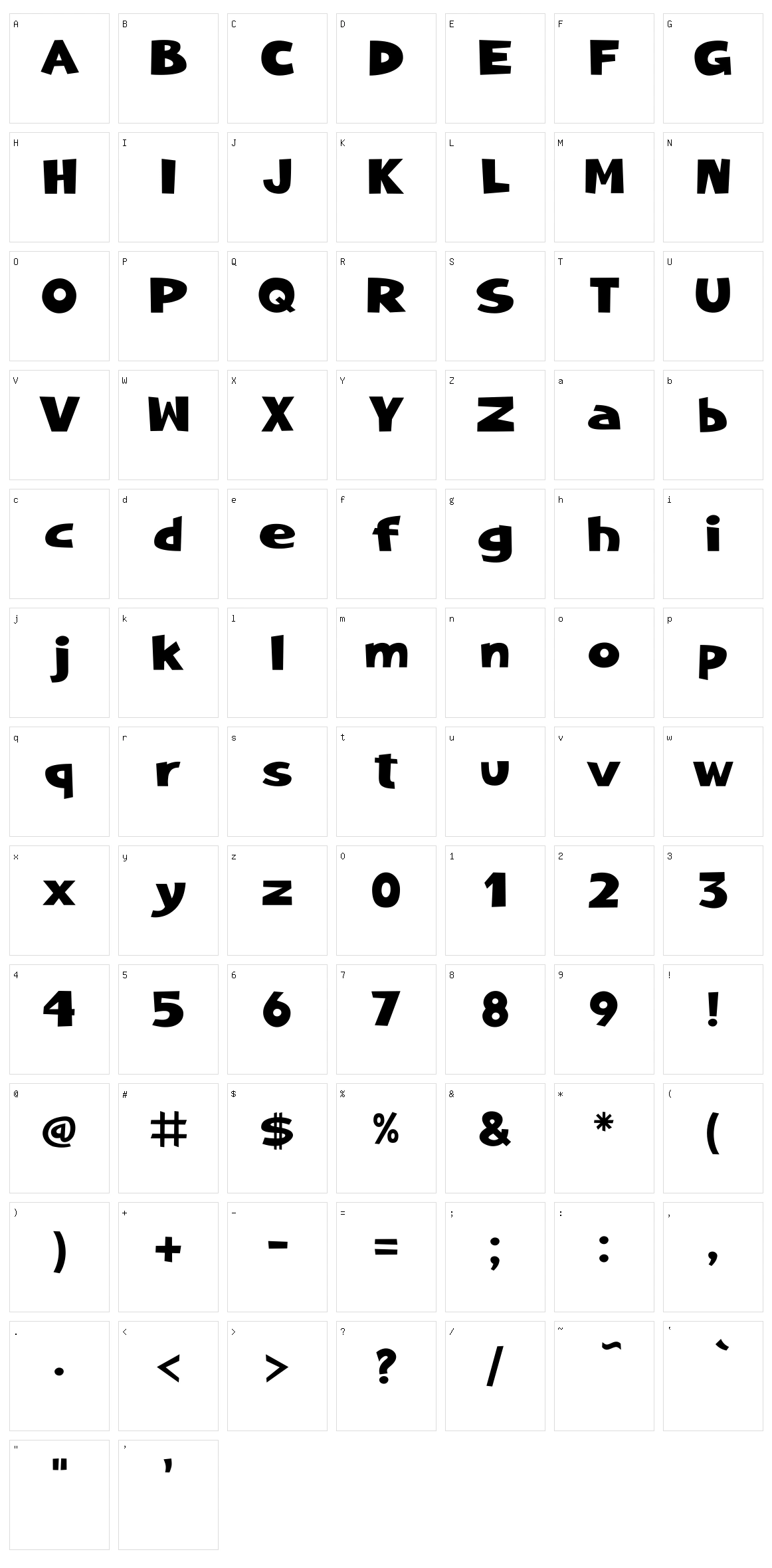
The free font London Presley is carefully designed by Julian Gudowski, showcasing a thoughtful balance of creativity and usability and falls under the Cartoon font style. When you download the ZIP file, it contains only 20.12 KB of font files, making it lightweight and quick to download. Please review the license details below to understand permitted usage and distribution rights. If license information is not available, we recommend using this font for personal projects only or contacting the author directly for commercial usage permissions.